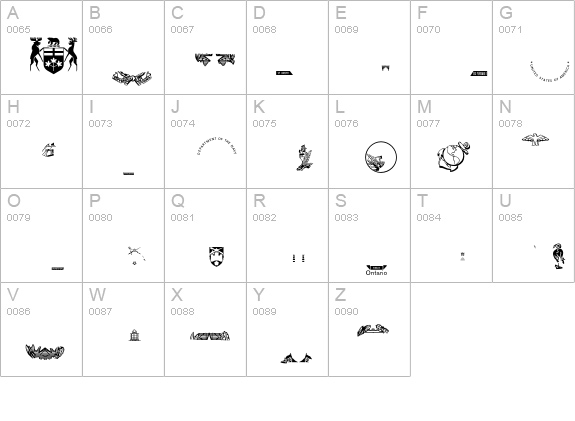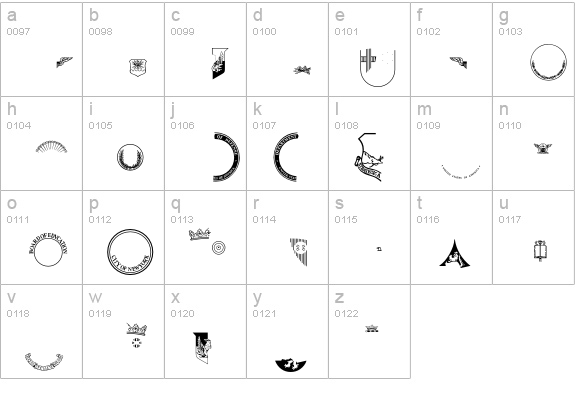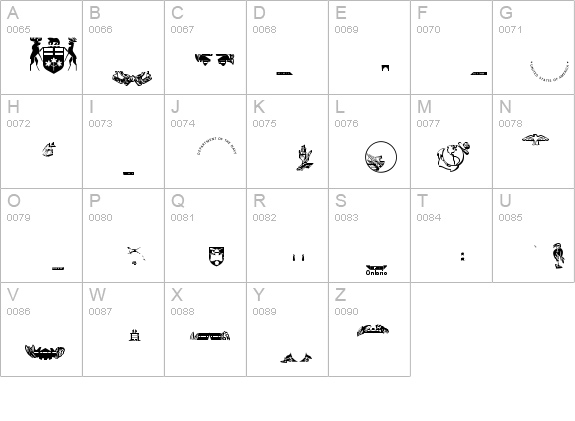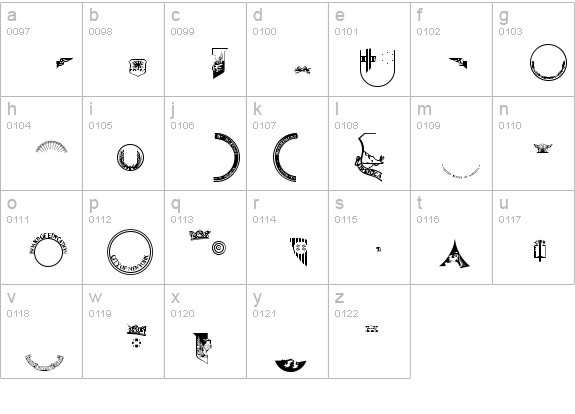
SpecialSealsP02 is a captivating and unique font that is sure to make a lasting impression. With its intricate details and artistic flair, this font is perfect for adding a touch of elegance to any design project. The beautifully crafted seals and symbols make it ideal for creating eye-catching logos, invitations, and branding materials. But what sets SpecialSealsP02 apart from other fonts is that it is not only visually stunning, but also freely available to download at FontsMarket.com. Yes, you heard it right! This incredible font can be yours without spending a single penny. Whether you are a professional designer or a hobbyist, you can now have access to this remarkable font and elevate your creative endeavors to new heights. The versatility of SpecialSealsP02 is another reason why it stands out from the crowd. Its bold and striking appearance makes it suitable for a wide range of projects, from vintage-inspired designs to contemporary artwork. It effortlessly combines traditional elements with a modern twist, making it a perfect choice for anyone looking to add a touch of sophistication and style to their work. So, why wait? Don't miss out on the opportunity to enhance your designs with the exquisite charm of SpecialSealsP02. Download it for free at FontsMarket.com and let your creativity soar. Discover the endless possibilities this font has to offer and create stunning visuals that will leave a lasting impression.